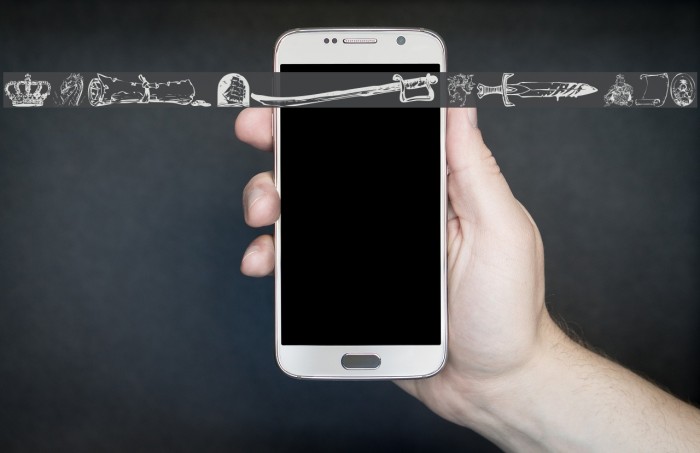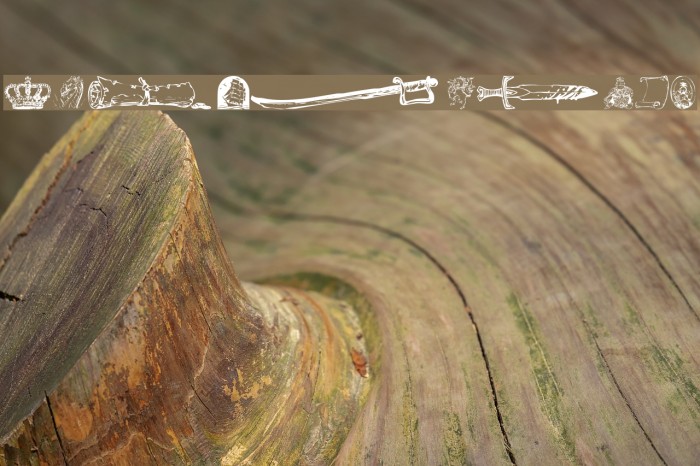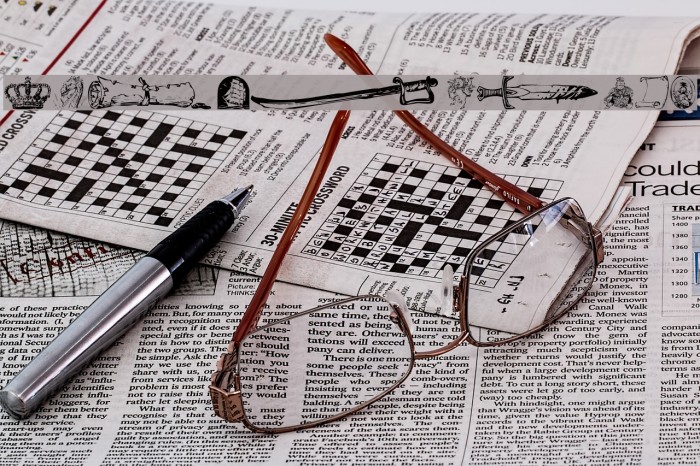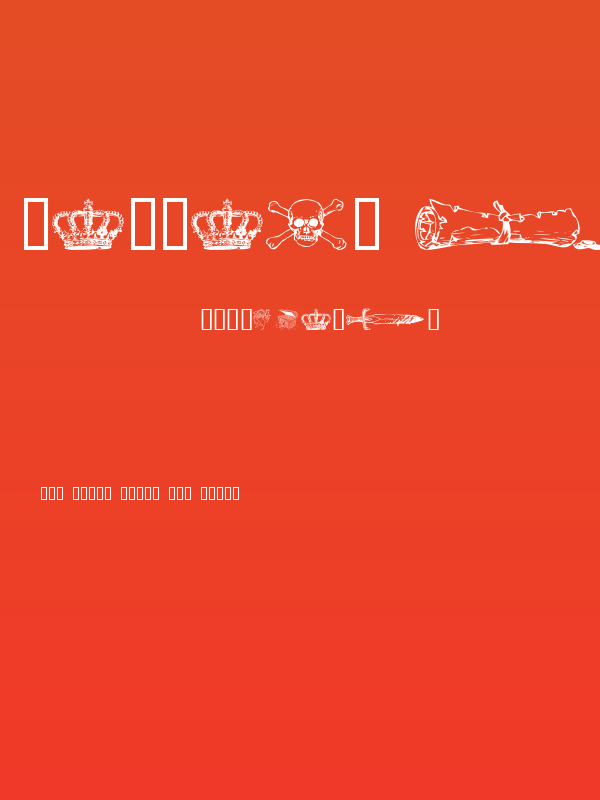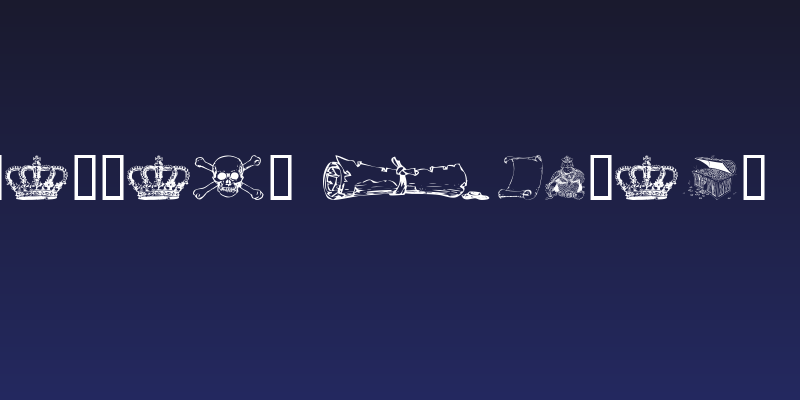
Fantasy clipart 2 Font
Fantasy clipart 2 Description
A decorative dingbat font featuring detailed fantasy-themed clipart illustrations such as crowns, swords, skulls, treasure chests, and mythical objects. Each glyph is a unique, hand-drawn black-and-white image rather than a traditional letterform.
Overall StyleDecorative, Fantasy, Hand-drawn
Use CaseIllustrative elements, icons, embellishments, thematic graphics
Proposed ProjectsGame design, fantasy book covers, party invitations, treasure maps, posters, scrapbooking, and themed event materials.